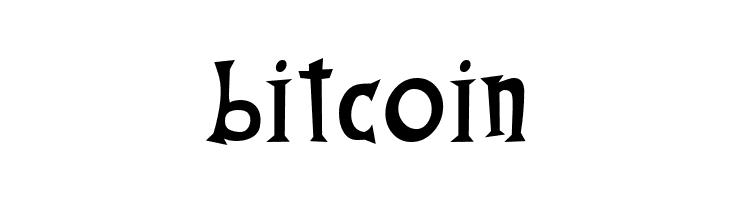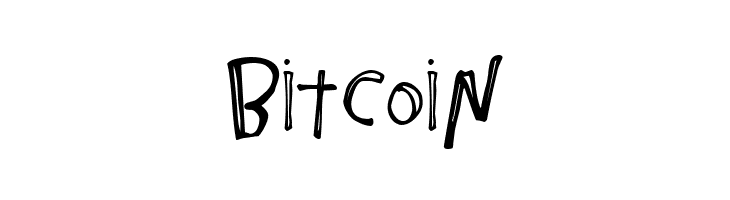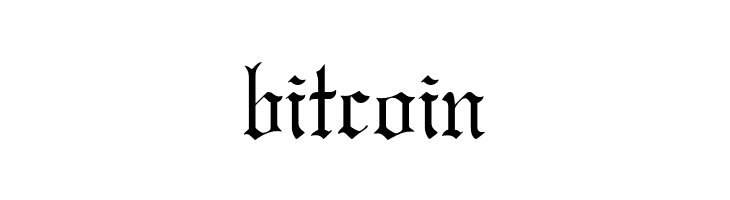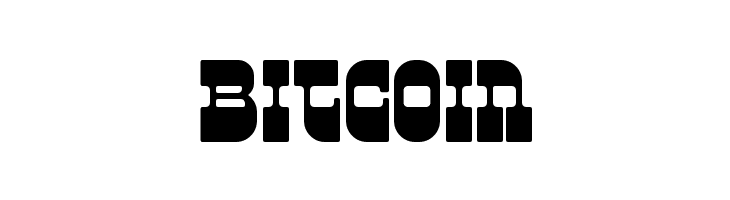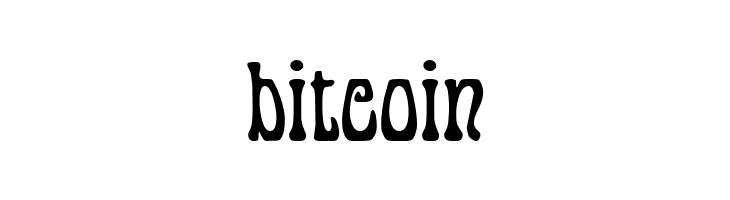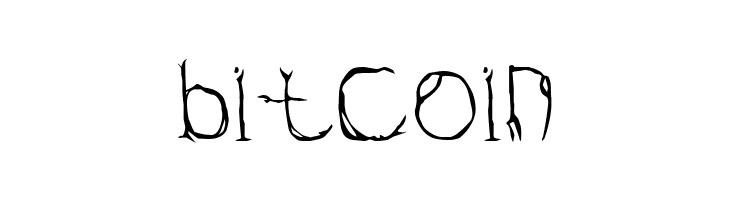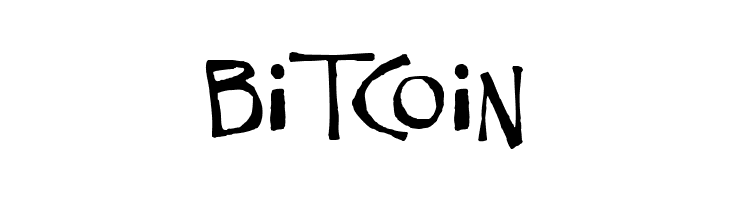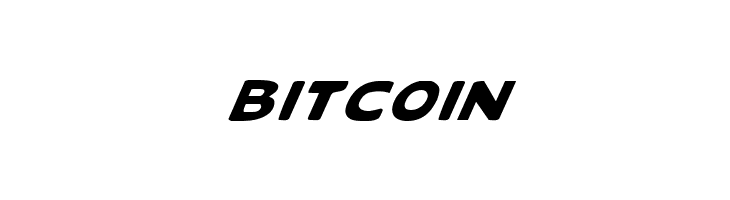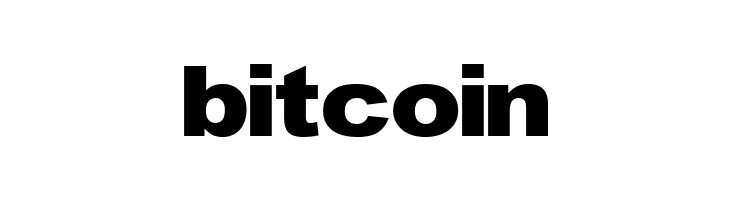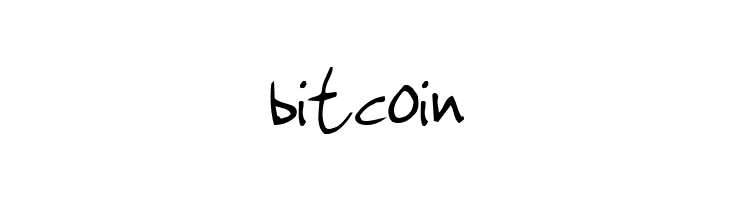
A lively, handwritten font with playful and dynamic letterforms.
An artistic and whimsical font with flowing, cursive-like strokes and elegant letterforms.
A futuristic, geometric font with angular, streamlined letterforms.
A playful, handwritten font with rounded, informal letterforms.
A bold, rugged font with irregular, angular letterforms and a hand-cut appearance.
A modern Fraktur-inspired font with bold, ornate letterforms and a Gothic flair.
A bold, decorative script font with flowing cursive letterforms and shadow effects.
A classic and elegant serif font with smooth, flowing letterforms and moderate contrast.
A playful, hand-drawn font with quirky, irregular letterforms.
A playful, quirky handwritten font with dynamic, irregular letterforms.
A bold, geometric font with block-like forms and minimal contrast.
A whimsical and playful script font with fluid, artistic letterforms.
A futuristic, geometric font with expanded letterforms and a tech-inspired design.
An edgy, thorn-like font with jagged, organic letterforms and bold, rectangular numbers.
A bold, playful font with irregular, dynamic letterforms and a retro-modern vibe.
A futuristic, segmented font with geometric, angular letterforms.